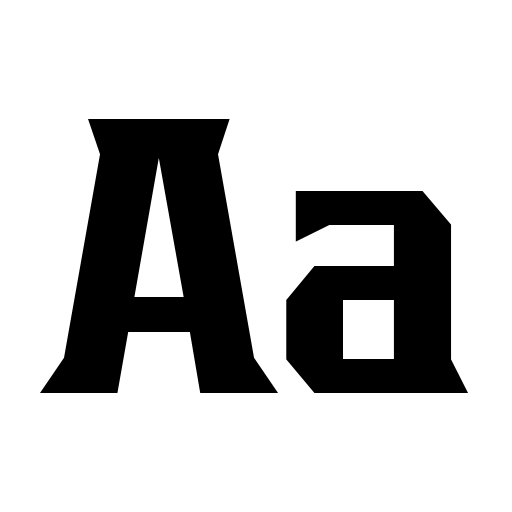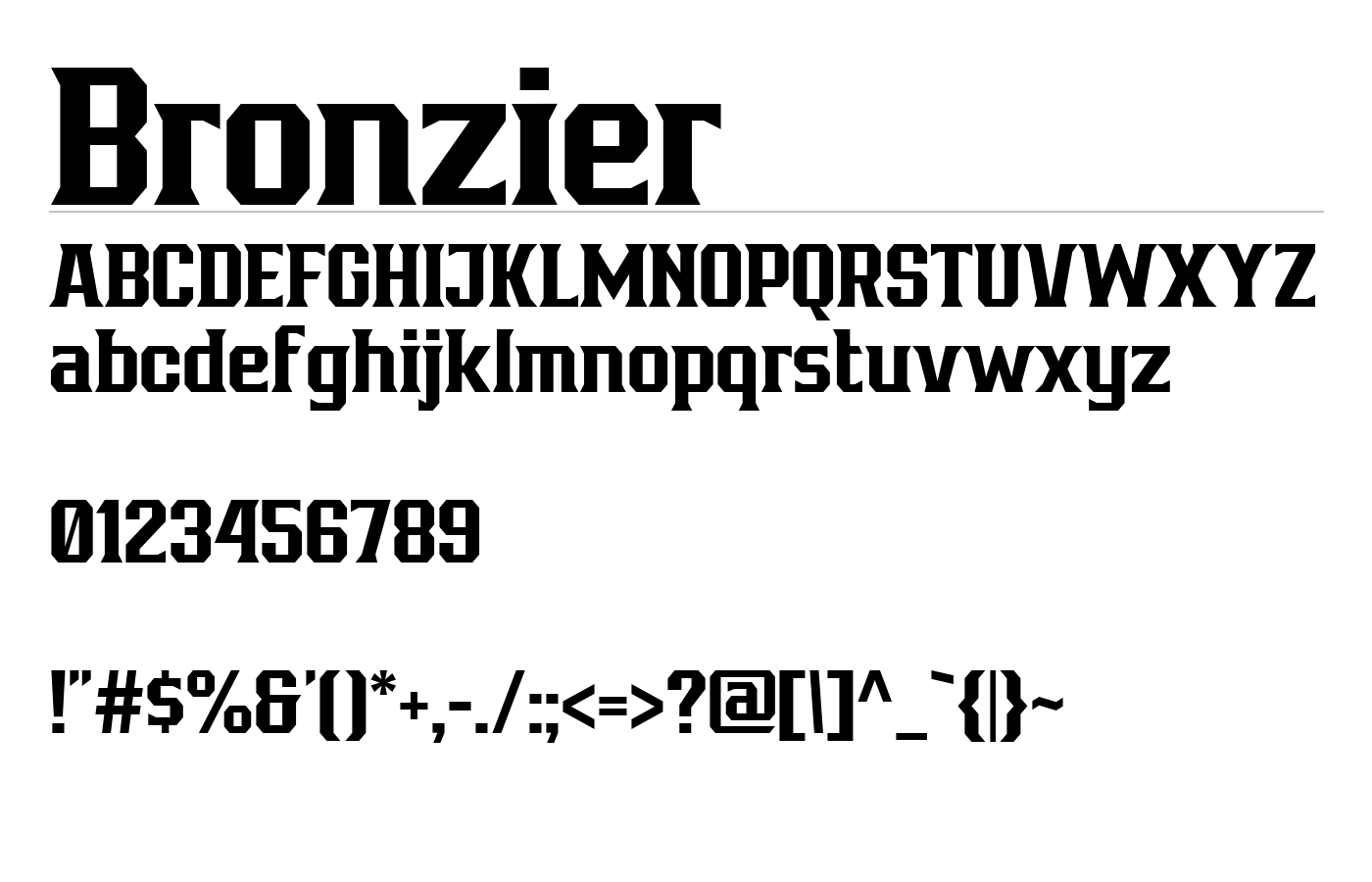
Bronzier is a bold, condensed slab serif font with a strong, angular design that conveys a sense of ruggedness and authority. Its high contrast and sharp, blocky serifs give it a vintage yet industrial feel, making it ideal for bold headlines, logos, and branding that require a powerful, assertive presence. This font works especially well for projects in fashion, editorial, or packaging where a commanding and distinct style is needed.
Bronzier Font
About Bronzier Font